10 Best Display Fonts Designs for Your Creative Projects
Finding the perfect focal point for your layout is now effortless with this curated selection of high-impact typefaces. These Display Fonts are designed to streamline your workflow and provide instant professional character to any branding or editorial task. Elevate your visual storytelling and save valuable production time by choosing styles that speak directly to your audience’s imagination.
1. Varsity Signature Display Font
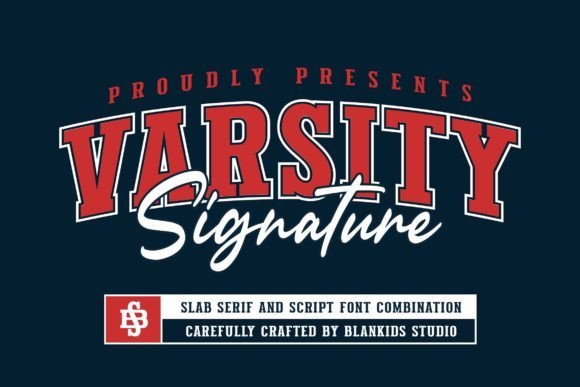
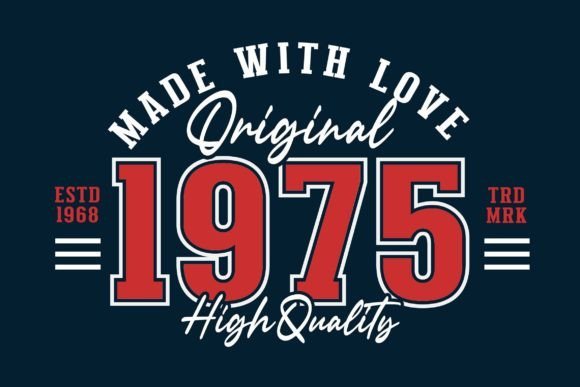
I’m absolutely captivated by the unique blend of athletic tradition and personal flair in Varsity Signature. It’s a rare find that combines the structure of classic sports lettering with the flow of a handwritten tag, making it perfect for high-end streetwear or fan merch. If you need Display Fonts with a spirited, custom-made feel, this font is a total game-changer for your creative projects.
2. Thankful Display Font
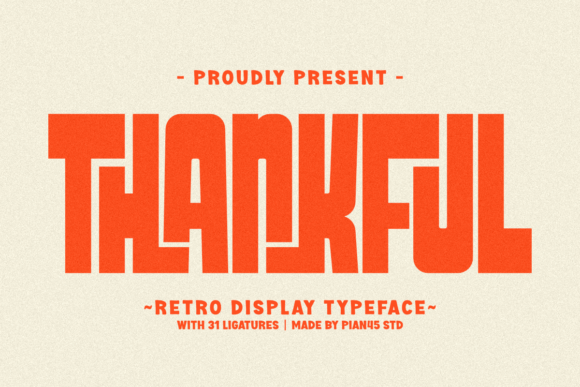
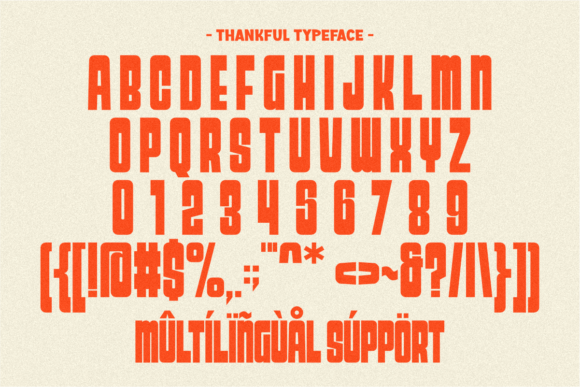
I’m genuinely impressed by the rustic and inviting charm that Thankful brings to the table. Its chunky, hand-drawn letterforms are a perfect match for seasonal harvest posters, warm kitchen decor, or cozy brand identities. When your design requires Display Fonts that radiate gratitude and home-style comfort, this delightful typeface is an ideal choice to make your visual message feel grounded and truly heartfelt.
3. Stay Funky Display Font
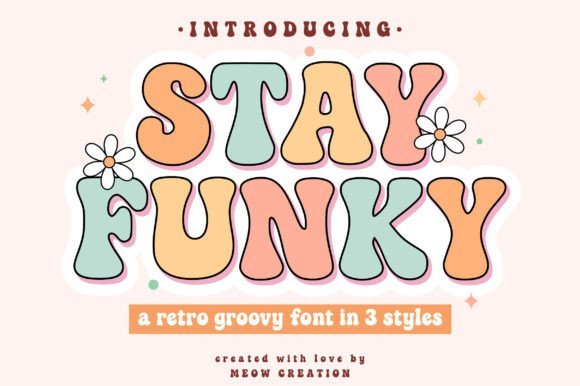
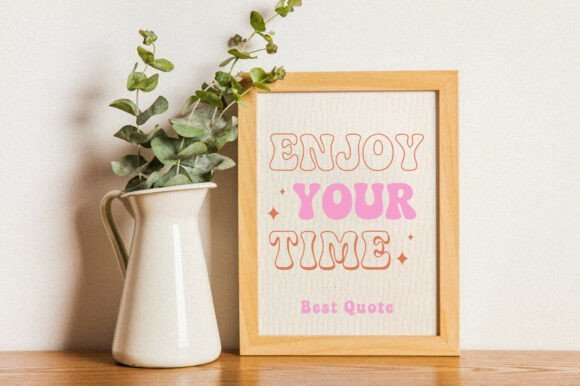
I’m totally vibing with the groovy, retro energy that Stay Funky brings to a digital canvas. Its thick, flowing curves and vintage soul make it an absolute standout for psychedelic posters, 70s-inspired apparel, or bold social media headers. If you are hunting for Display Fonts that inject a sense of rhythm and nostalgia into your work, this playful typeface is the perfect tool to make your designs look truly iconic.
4. Sports Varsity Display Font
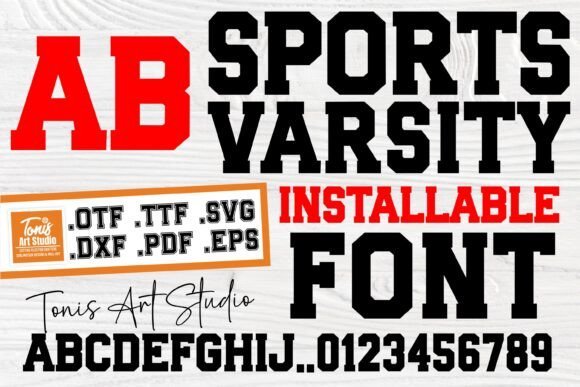
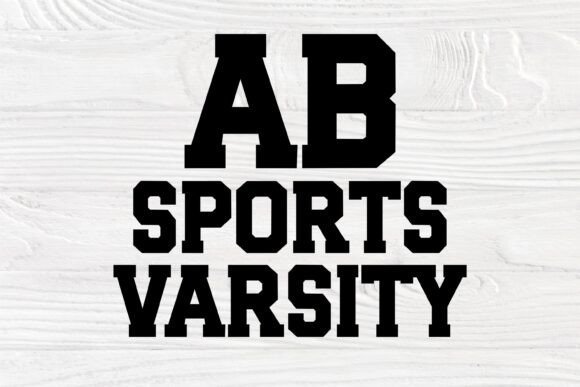
I’m really struck by the classic, authoritative punch that Sports Varsity delivers. Its clean, blocky structure is the gold standard for athletic branding, varsity jackets, and high-energy competition graphics. If you are looking for Display Fonts that communicate strength, tradition, and a winning spirit, this professional typeface is exactly what you need to give your sports-related projects a timeless and bold edge..
5. Ransom Note Magazine Display Font
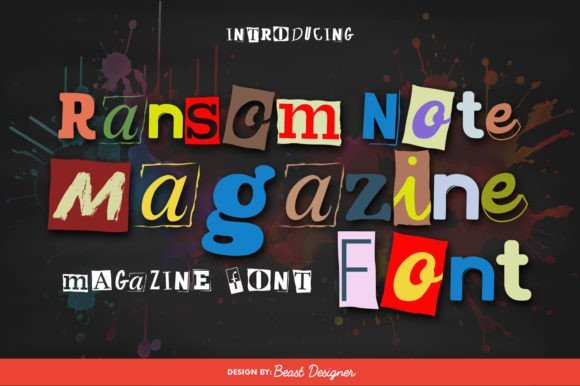
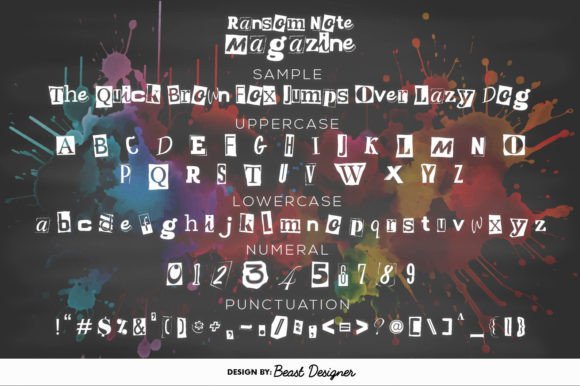
I’m incredibly excited by the chaotic and raw personality of Ransom Note Magazine. This font captures that classic «cut-out» newspaper look perfectly, making it an edgy choice for punk-rock posters, zines, or rebellious fashion branding. If you need Display Fonts that break all the rules and add a gritty, handmade vibe to your layout, this unique typeface is the ultimate tool for creating a truly disruptive visual impact.
6. Cute Bubble Display Font
I’m absolutely delighted by the soft and playful appearance of Cute Bubble. Its plump, cloud-like letterforms are an amazing fit for nursery decor, candy packaging, or fun birthday invitations. When your project calls for Display Fonts that are approachable, friendly, and full of joy, this charming typeface is a fantastic asset to ensure your designs feel lighthearted and capture a sense of pure, bubbly imagination.
7. Simple Stacked Display Font
I’m really impressed by the clever architectural structure of Simple Stacked. Its unique design allows letters to fit together with satisfying precision, making it a brilliant choice for modern logos, minimalist posters, or tech-focused branding. If you want Display Fonts that offer a clean, geometric look while maintaining a high level of creative sophistication, this typeface is a perfect tool for building a sharp and organized visual.
8. Retro Magic Display Font
I’m truly mesmerized by the groovy and psychedelic aura that Retro Magic brings to the screen. Its fluid, liquid-like curves and vintage weight are perfect for festival flyers, disco-themed branding, or soulful album covers. If you are searching for Display Fonts that transport your audience back to the vibrant era of the seventies, this enchanting typeface is a must-have for adding a wavy, nostalgic flow to your modern creative projects.
9. Varsity Narrow Display Font
I’m really drawn to the sleek and condensed power of Varsity Narrow. It takes the classic collegiate look and streamlines it, making it an excellent fit for tight vertical layouts, sports headlines, or modern team logos. If you need Display Fonts that maintain a strong athletic presence while maximizing your horizontal space, this refined and bold typeface is a professional choice that guarantees a winning and sharp aesthetic.
10. De Augusta Display Font
I’m truly impressed by the elegant and authoritative presence of De Augusta. Its sophisticated strokes and classic proportions make it a standout choice for high-end branding, luxury packaging, or editorial headlines. When your work requires Display Fonts that balance timeless tradition with a modern professional polish, this refined typeface is a magnificent tool to elevate your creative projects and command instant respect.